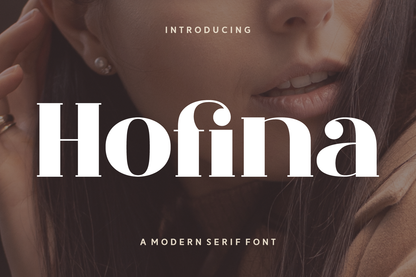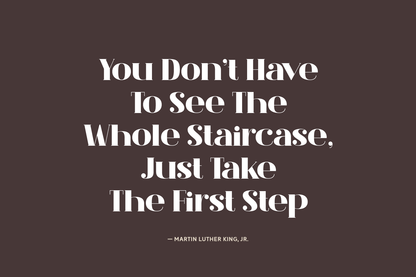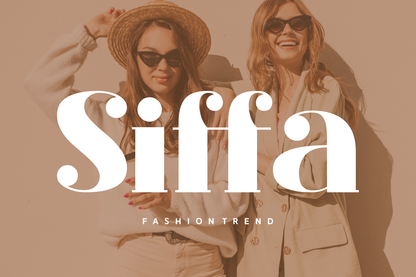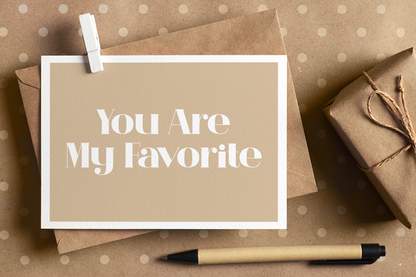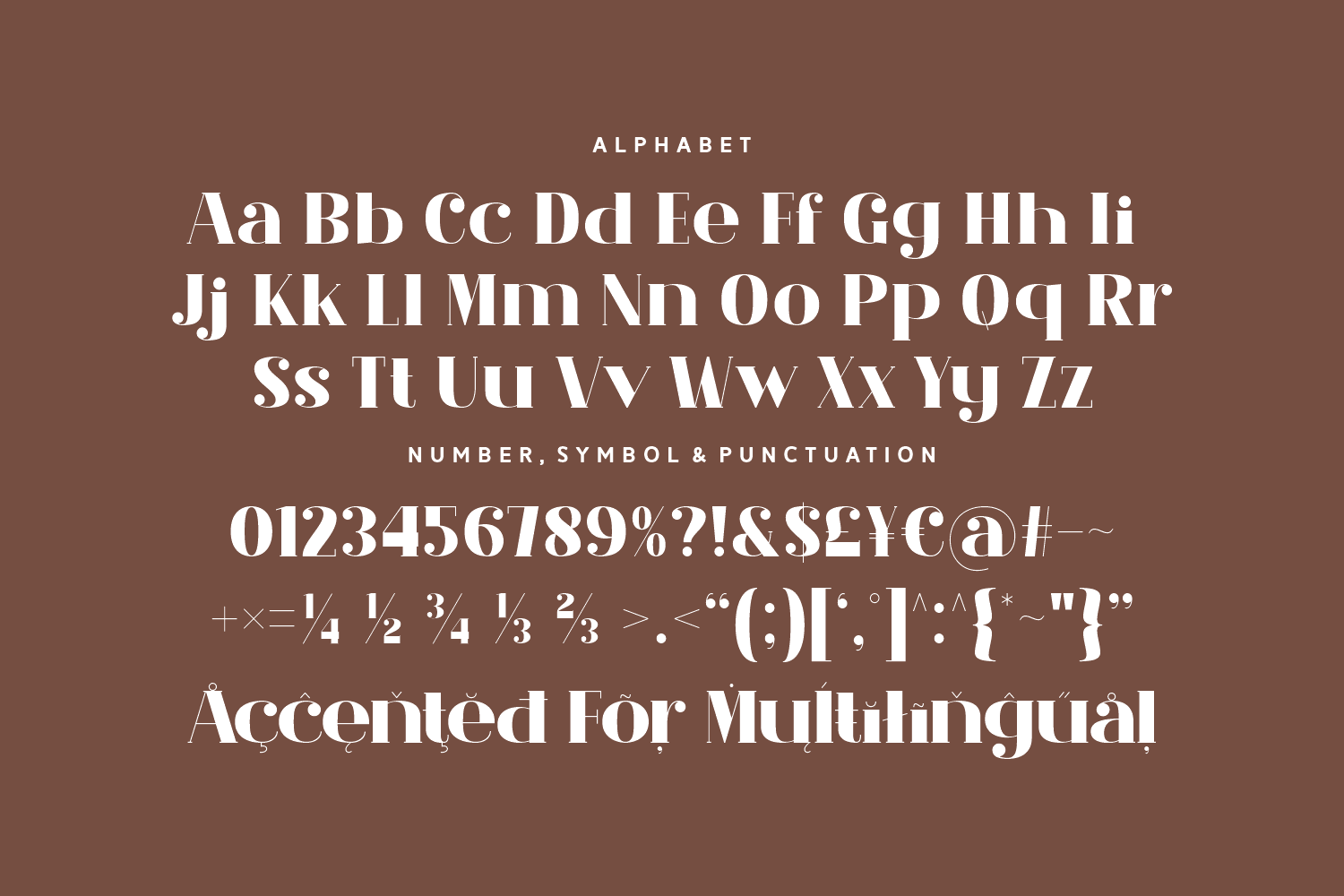
Hofina is a modern serif font that blends minimalism with a touch of bold elegance. Its high contrast strokes and sculpted curves make it perfect for fashion branding, editorial headlines, and upscale logos. Clean yet confident, Hofina brings timeless class to any project.
A refined serif with presence and polish.